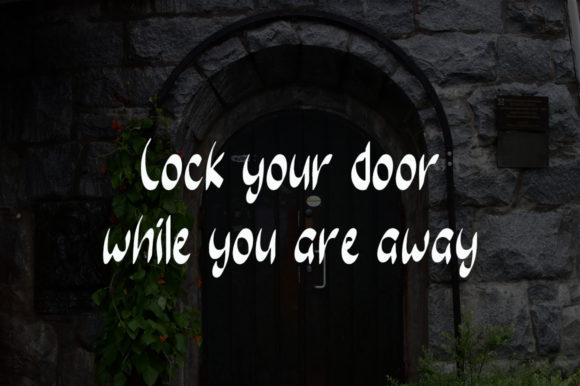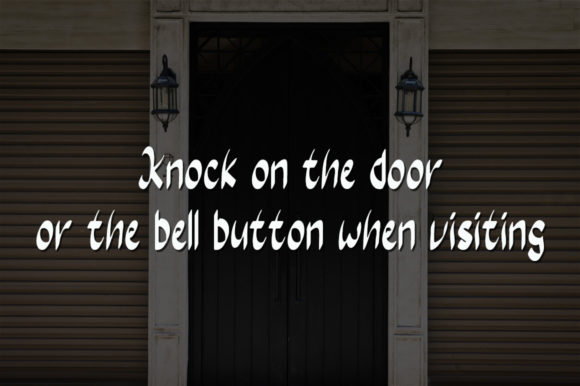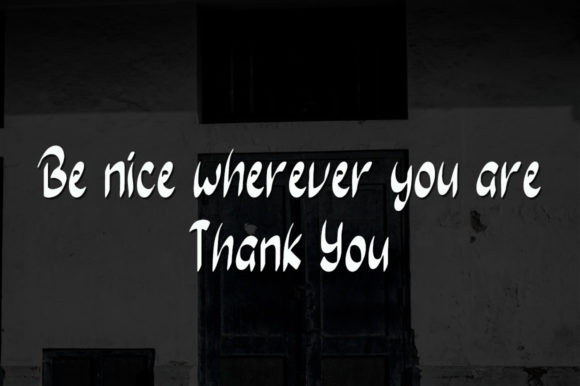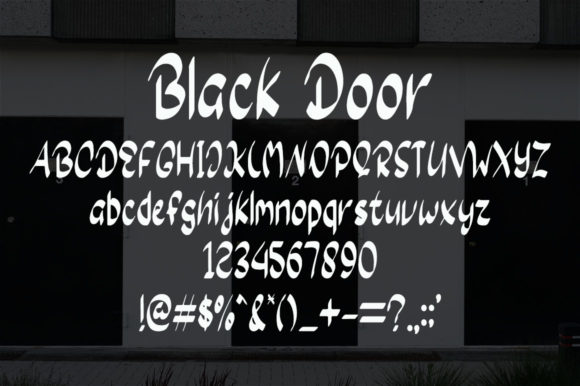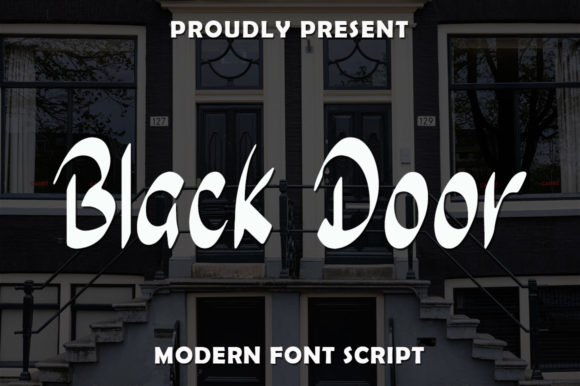
Introducing Black Door Font: The Perfect Handwritten Font for Your Design Projects
Are you looking for a font that can add a touch of warmth and friendliness to your design projects? Look no further than Black Door Font, a modern and sweet handwritten font that’s perfect for a variety of design ideas. In this article, we’ll take a closer look at Black Door Font, its features, and how you can use it to elevate your designs.
What is Black Door Font?
Black Door Font is a beautiful, handwritten font that’s designed to add a personal touch to your designs. With its gentle and smooth strokes, this font is perfect for creating a warm and inviting atmosphere in your projects. Whether you’re working on a logo, branding, packaging, or social media graphics, Black Door Font is sure to make your designs stand out.
Features of Black Door Font
So, what makes Black Door Font so special? Here are some of its key features:
• Modern and sweet design: Black Door Font has a modern and sweet design that’s perfect for creating a friendly and approachable atmosphere in your designs.
• Handwritten style: This font has a beautiful, handwritten style that’s perfect for adding a personal touch to your designs.
• Versatile: Black Door Font is versatile and can be used on a variety of design projects, from logos and branding to packaging and social media graphics.
• Easy to read: Despite its handwritten style, Black Door Font is easy to read, making it perfect for body text and headings.
How to Use Black Door Font in Your Designs
Now that we’ve covered the features of Black Door Font, let’s take a look at how you can use it in your designs. Here are some ideas to get you started:
• Logos and branding: Use Black Door Font to create a unique and memorable logo for your brand. Its handwritten style and modern design make it perfect for creating a friendly and approachable brand identity.
• Packaging design: Add a personal touch to your packaging designs with Black Door Font. Its sweet and gentle design makes it perfect for creating labels, tags, and other packaging materials.
• Social media graphics: Use Black Door Font to create engaging social media graphics, such as quotes, posters, and flyers. Its easy-to-read design makes it perfect for creating graphics that will be shared on social media.
• Web design: Use Black Door Font to add a personal touch to your website. Its modern design and handwritten style make it perfect for creating a friendly and inviting atmosphere on your website.
Tips for Using Black Door Font
Here are some tips for using Black Door Font in your designs:
• Pair it with other fonts: Black Door Font looks great when paired with other fonts. Try pairing it with a bold sans-serif font for a contrasting look.
• Use it for headings and titles: Black Door Font is perfect for creating headings and titles. Its handwritten style and modern design make it perfect for adding a personal touch to your designs.
• Experiment with colors: Black Door Font looks great in a variety of colors. Experiment with different colors to find the one that works best for your design.
In conclusion, Black Door Font is a beautiful, handwritten font that’s perfect for adding a personal touch to your design projects. Its modern and sweet design, versatile style, and easy-to-read font make it perfect for a variety of design ideas. Whether you’re working on a logo, branding, packaging, or social media graphics, Black Door Font is sure to make your designs stand out. So why wait? Download Black Door Font today and start creating stunning designs!
Black Door Font: The Perfect Font for Designers and Crafters
Black Door Font is perfect for designers and crafters who want to add a personal touch to their designs. Its handwritten style and modern design make it perfect for creating a friendly and inviting atmosphere in your projects. Whether you’re working on a DIY project or a professional design project, Black Door Font is sure to make your designs stand out.